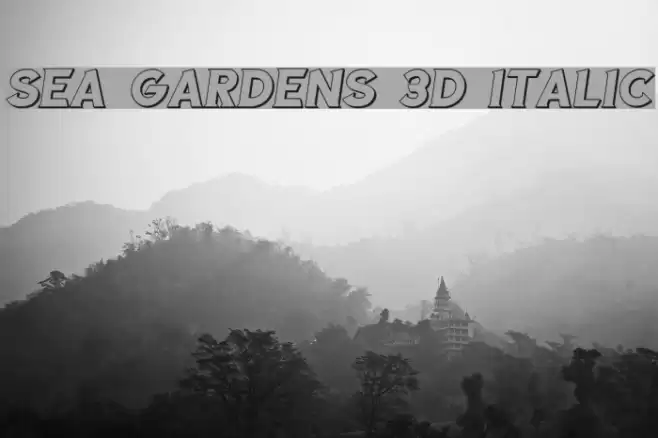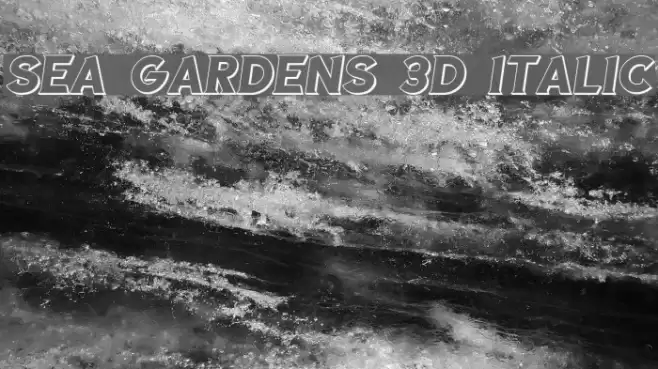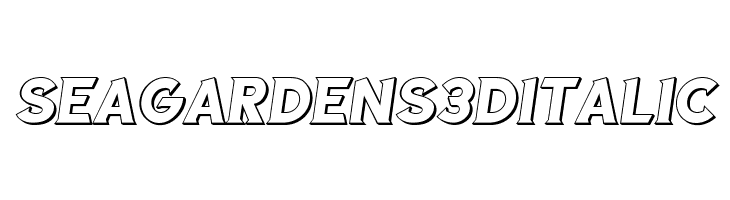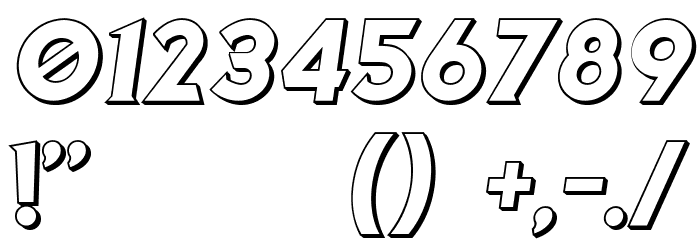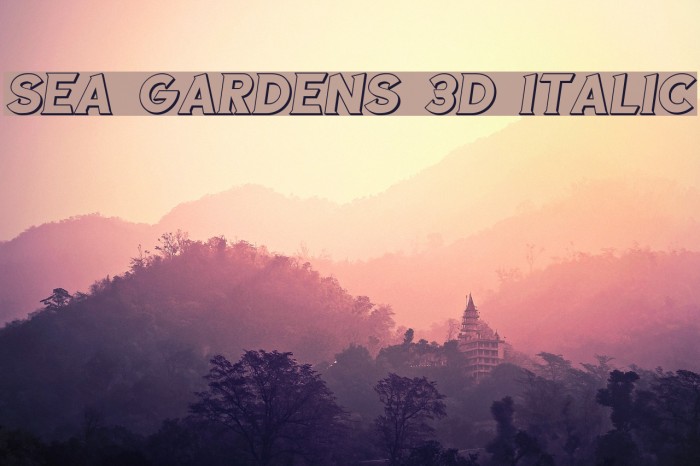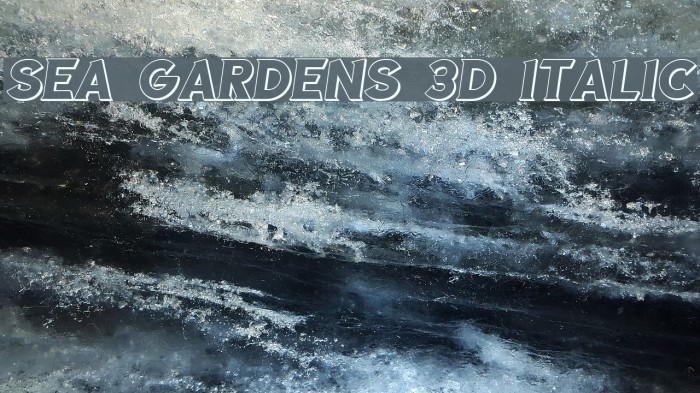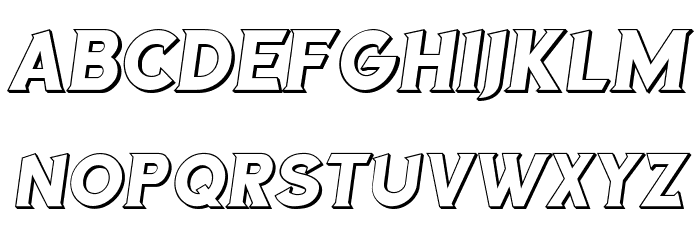
Sea Gardens 3D Italic Font
Sea Gardens 3D Italic Description
This font features a bold, three-dimensional style with italicized characters, giving it a dynamic and modern appearance. The letters are outlined, creating a shadow effect that enhances the 3D illusion. The uppercase and lowercase letters maintain a consistent style, with clean lines and a slight slant to the right. The numerals and special characters are designed to match the overall aesthetic, ensuring uniformity across all elements. This font is particularly eye-catching and suitable for projects that require a strong visual impact.
A bold, 3D italic font with outlined characters and a modern style from Uncategorized fonts.
- Proposed Projects: Ideal for posters, headlines, logos, and any design needing a striking, modern look.